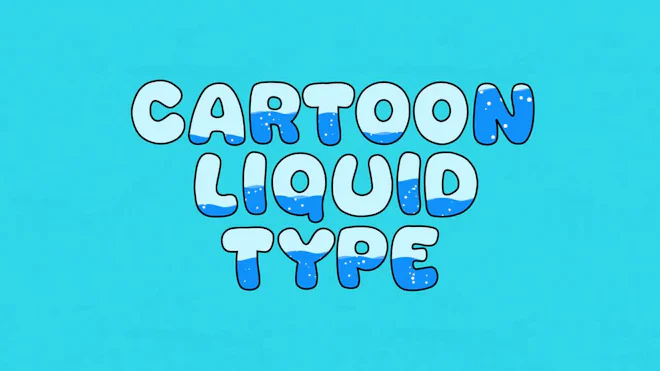
This stock motion graphics video pack includes 36 different clips of cartoon liquid typefaces on a transparent alpha channel in a seamless loop. Resolution is 2160x2160.